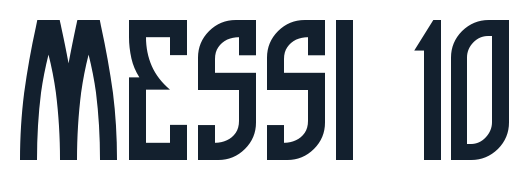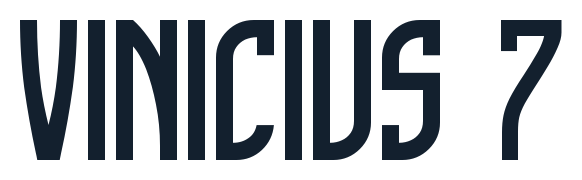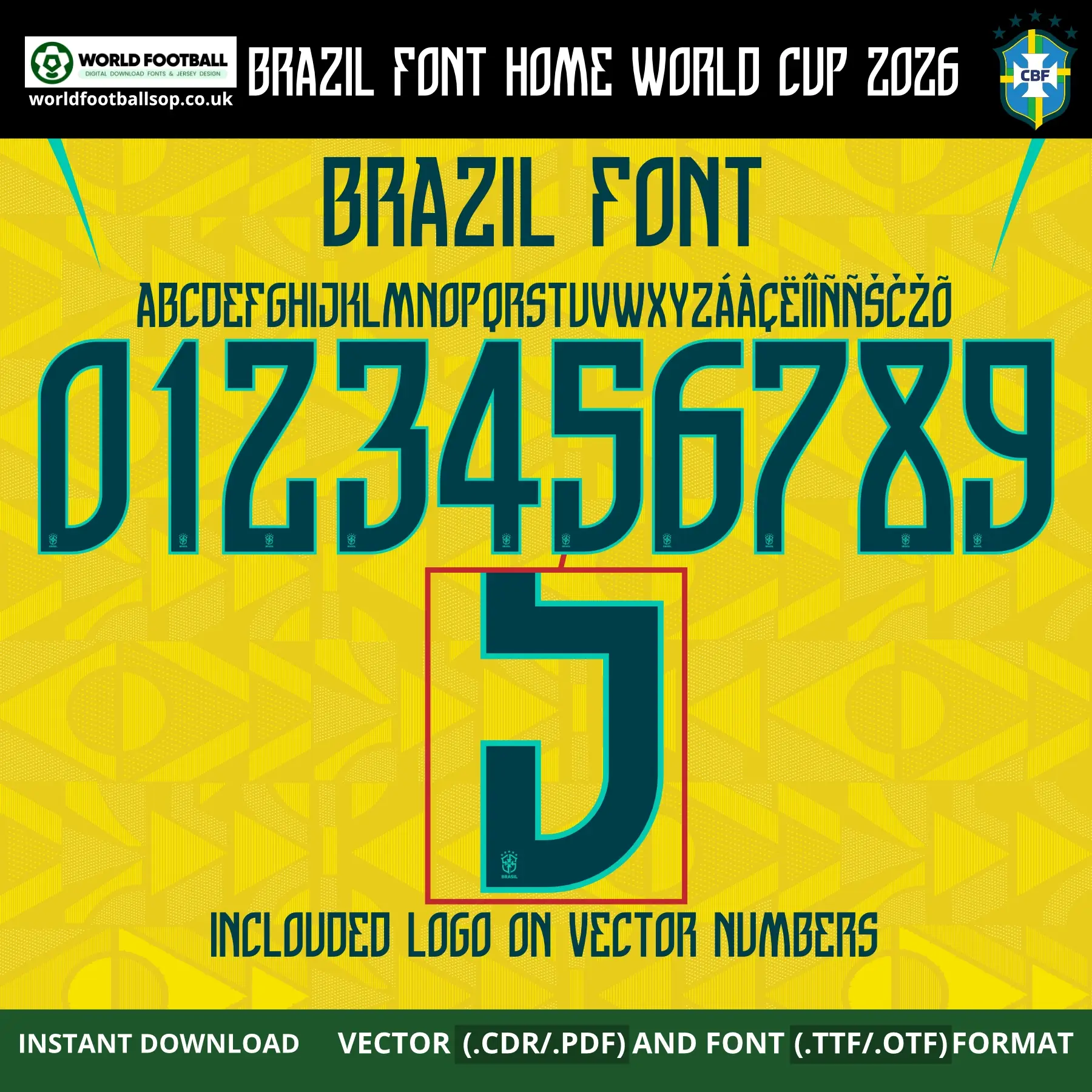
Brazil Font Home World Cup 2026 brings the official sharp green numbers and letters for the classic Yellow Canary home kit. Download TTF, OTF and vector files (CDR, PDF) with full A-Z alphabet, accents and 0-9 numbers including CBF crests on the digits for authentic Seleção Brasileira home kit namesets.
Brazil Font Home World Cup 2026 - Seleção Brasileira Yellow Canary Style
The Brazil Font Home World Cup 2026 pack recreates the modern geometric typeface designed for the Nike Brazil 2026 home shirt. The numbers are tall and condensed with sharp angular cuts and straight lines, echoing the aggressive Tipografia Brasil World Cup 2026 look used across both home and away kits. On your covers the digits appear in deep teal with a bright mint outline over the traditional Yellow Canary base patterned with distorted Brazilian-flag graphics, exactly as seen on the new Seleção Brasileira home kit.
Perfect for kit printers, collectors and designers, this pack lets you produce accurate Fonte Brasil World Cup 2026 namesets for every Brazil fan jersey. Vector numbers include a small CBF crest at the base, while the installed TTF/OTF fonts keep things clean for general design projects. You can easily create “RAPHINHA 11” for posters, thumbnails, or custom shirts that match the official Seleção Brasileira home kit style on TV and in the stadium.
Brazil home font World Cup 2026 – bold teal green numbers 0-9 and full alphabet on yellow Canarinha home kit background with Leo Pereira 15 and number 22 jersey Brazil Home Font World Cup 2026 – bold teal green jersey font with full numbers and alphabet, available in TTF, OTF, CDR and PDF at worldfootballshop.co.uk
• Full uppercase A-Z alphabet plus extended Latin characters (Á Â Ã Ç É Í Ñ Š Ž, etc.) for Portuguese and international player names.​
• Numbers 0-9 in Brazil 2026 home kit style, ready for back, front or shorts printing.​​
These files are ideal for custom Seleção Brasileira home kit replicas, futsal or Sunday-league teams inspired by Brazil, and digital artwork that needs true Brazil World Cup 2026 typography.
Design highlights
• Sharp geometric style: Tall condensed numbers with angular cuts matching the modern Tipografia Brasil World Cup 2026 aesthetic for both home and away kits.​​
• Seleção Brasileira home kit perfect match: Teal green with mint outline designed for the classic Yellow Canary shirt with 1970-inspired flag graphics.​​
• High-visibility contrast: Bold teal fill ensures readability on yellow fabric for TV broadcasts and stadium viewing.​​
• CBF crest integration: Vector digits include authentic CBF badge placement at number base, just like official match shirts.​
• Designed to match the Nike Brazil 2026 World Cup home kit, with Yellow Canary base and teal details inspired by the legendary 1970 shirt.
• Uses the same sharp, futuristic geometry as the away Tipografia Brasil World Cup 2026 Fonte Brasil World Cup 2026, giving a unified identity across all Seleção kits.​​